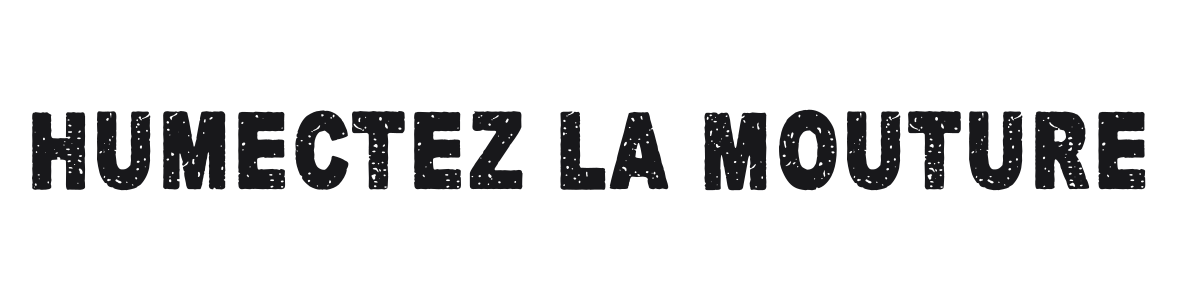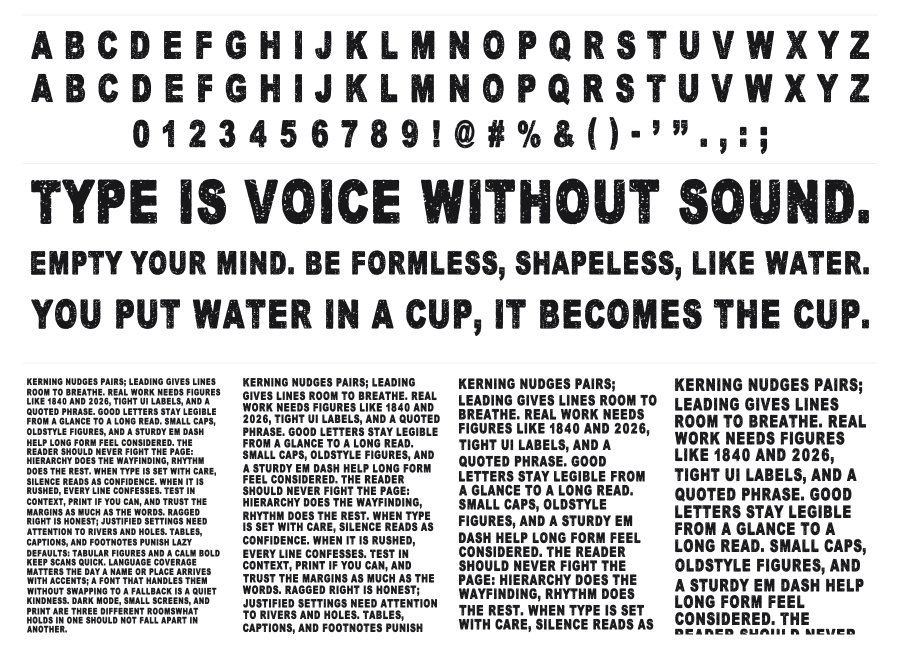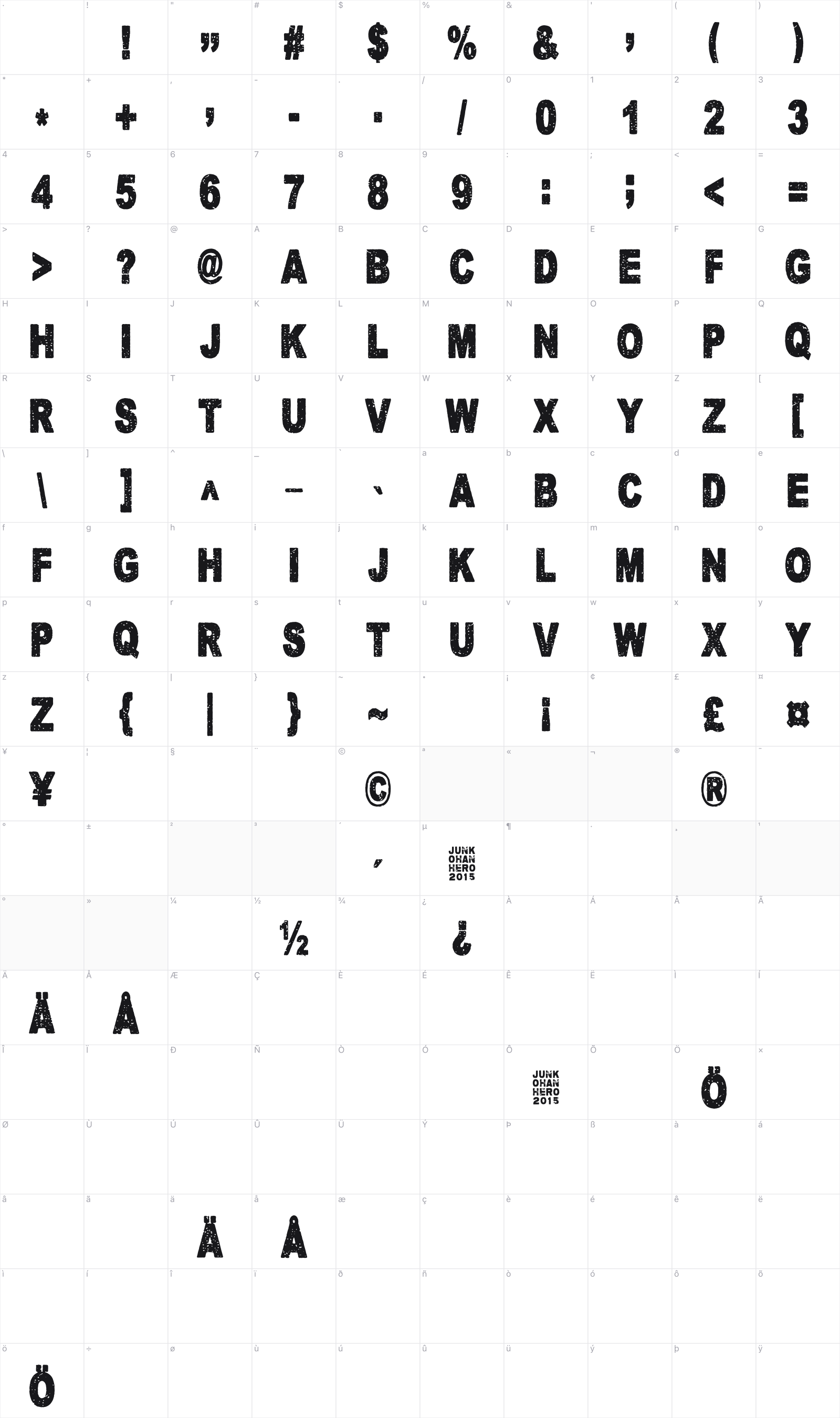
Humectez La Mouture
Humectez La Mouture is a heavy condensed sans-serif crushed under layers of ink erosion and surface wear. Every character carries the texture of a stamp or letterpress block that has seen too many impressions, giving it a raw, lived-in quality that clean fonts can't fake. Strong at large sizes for posters, album art, and rough-edged branding.